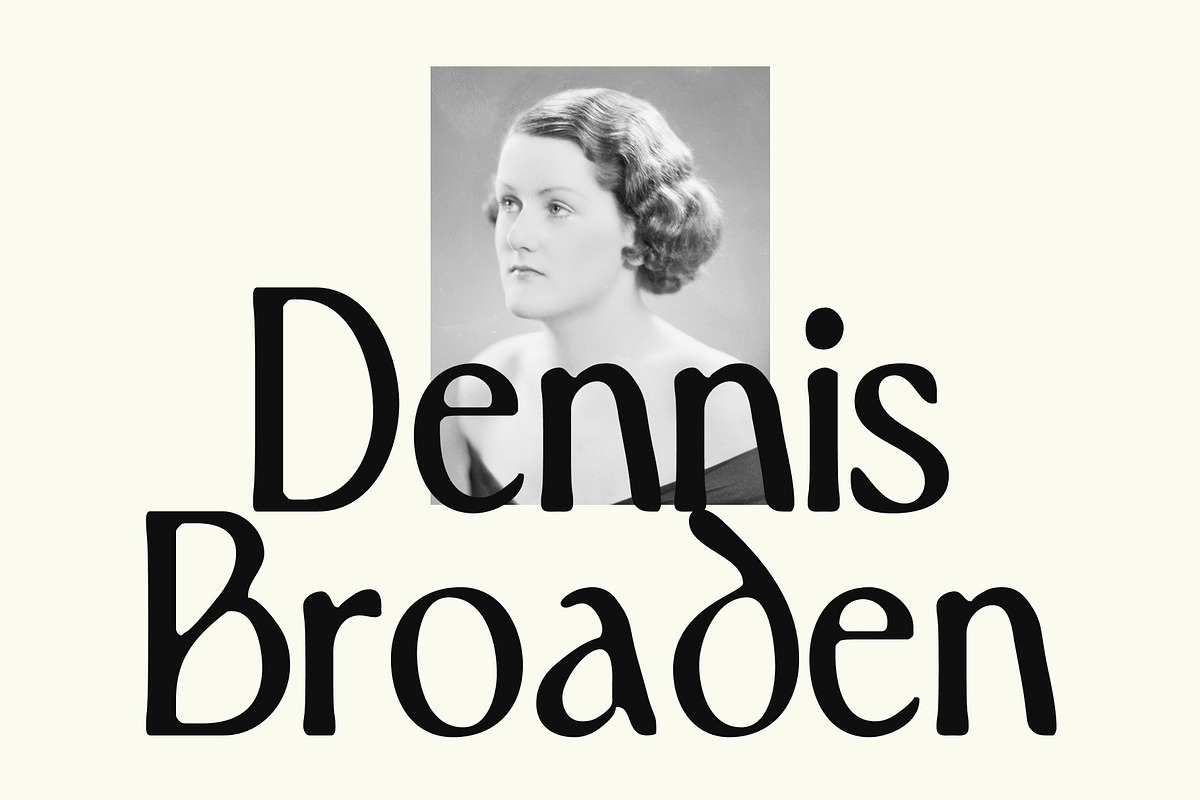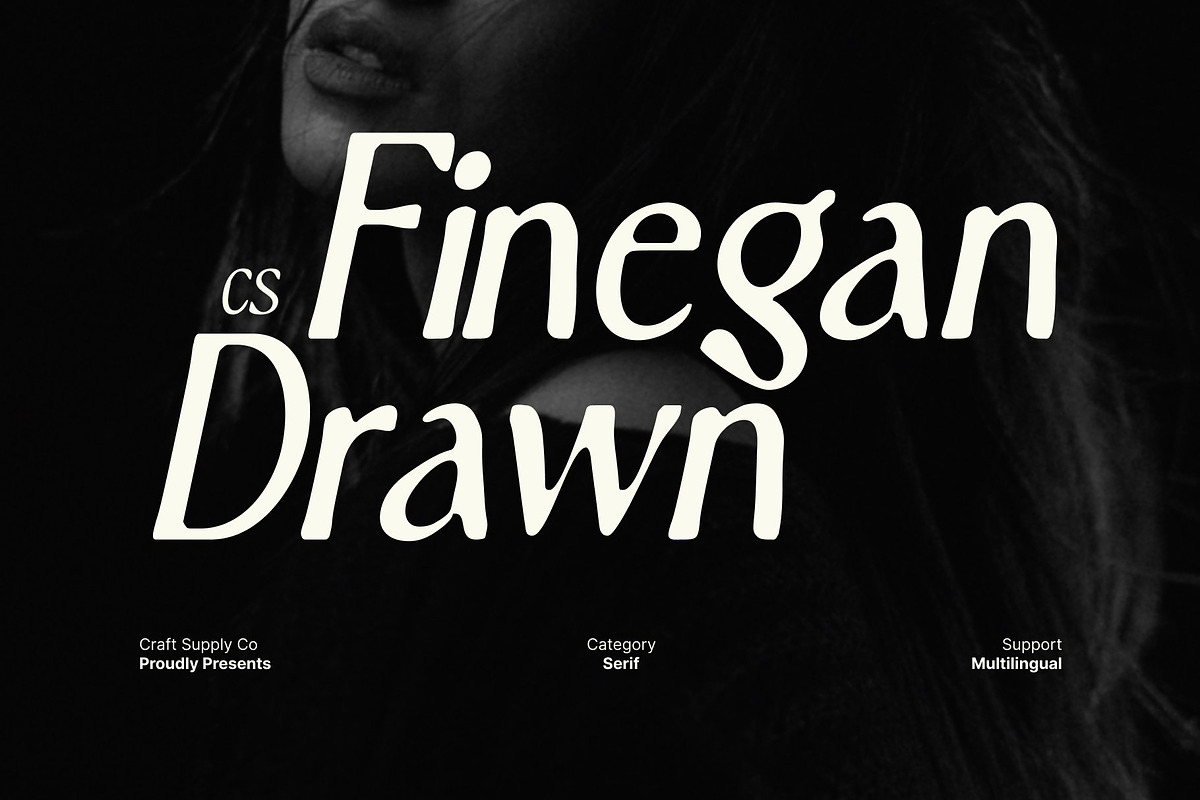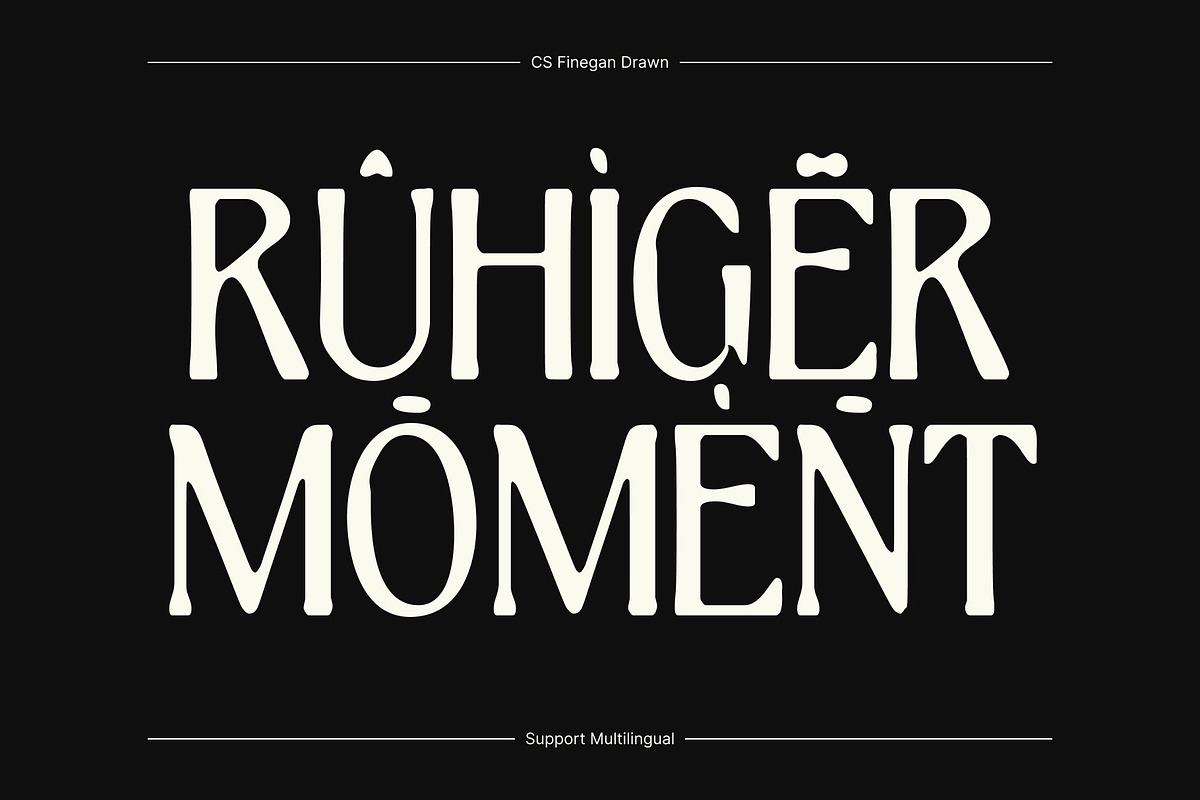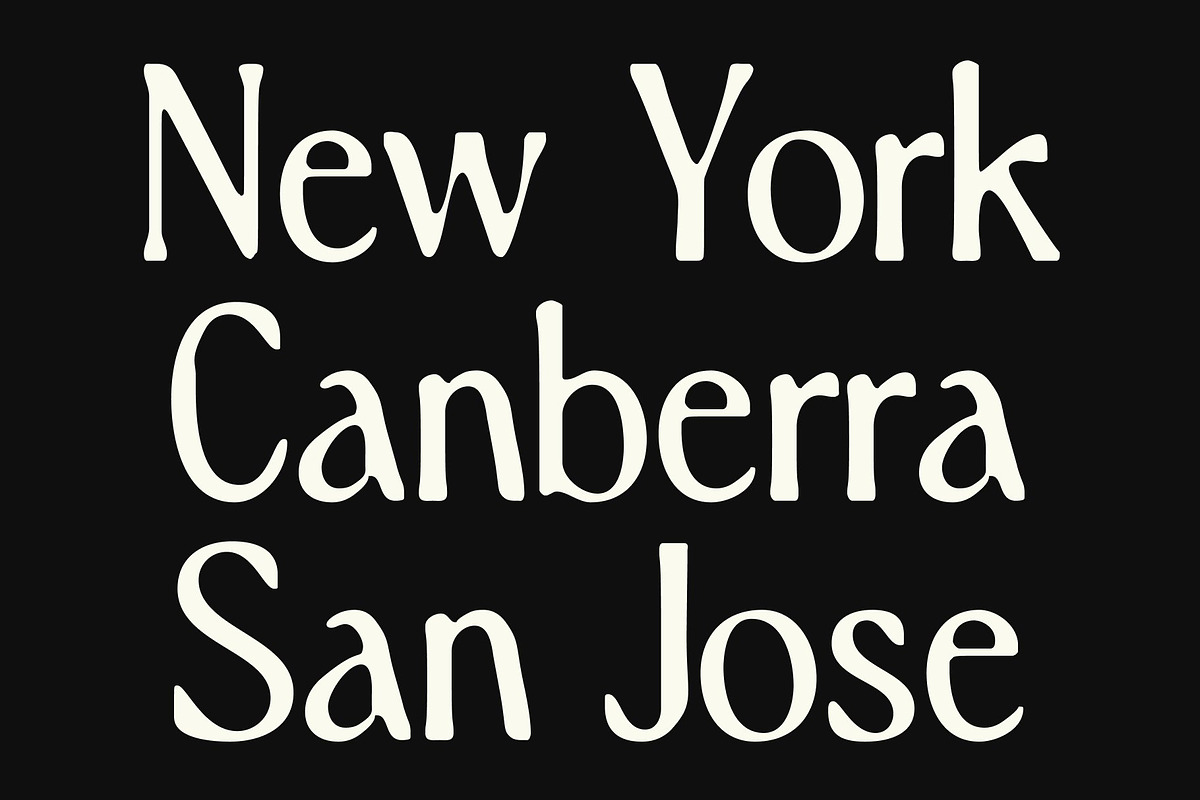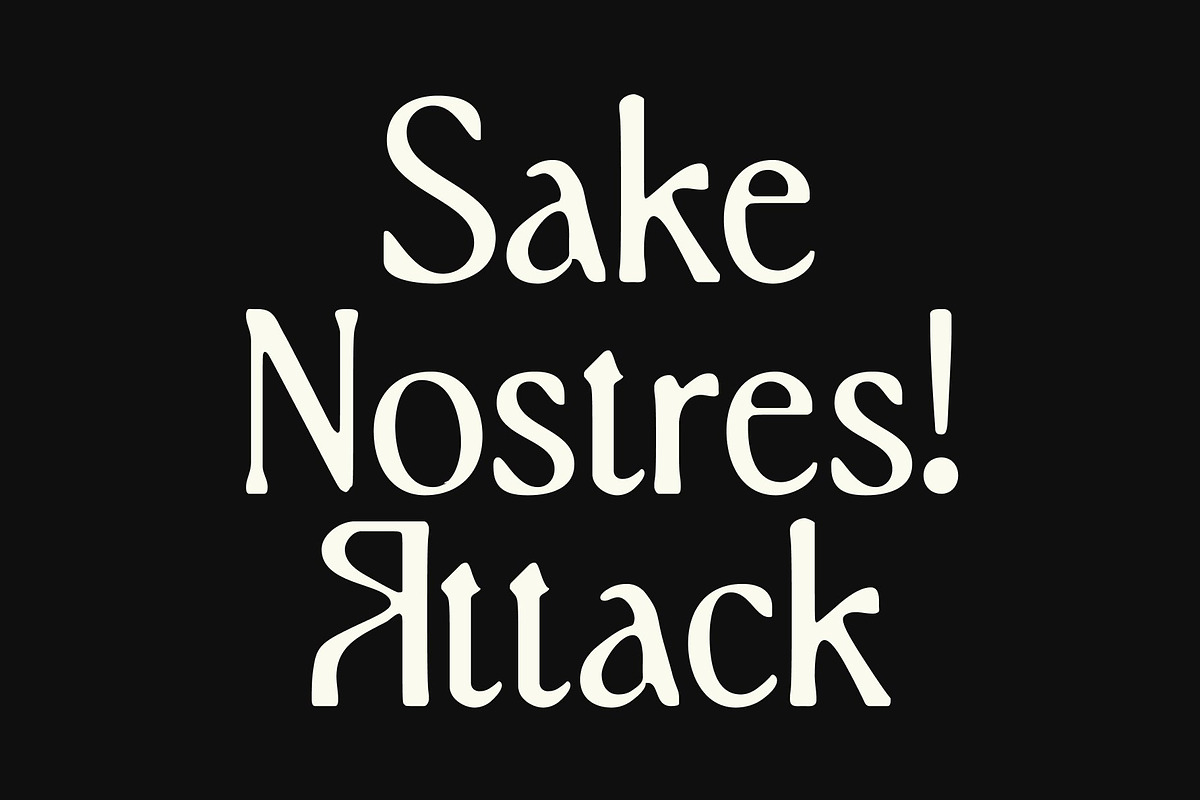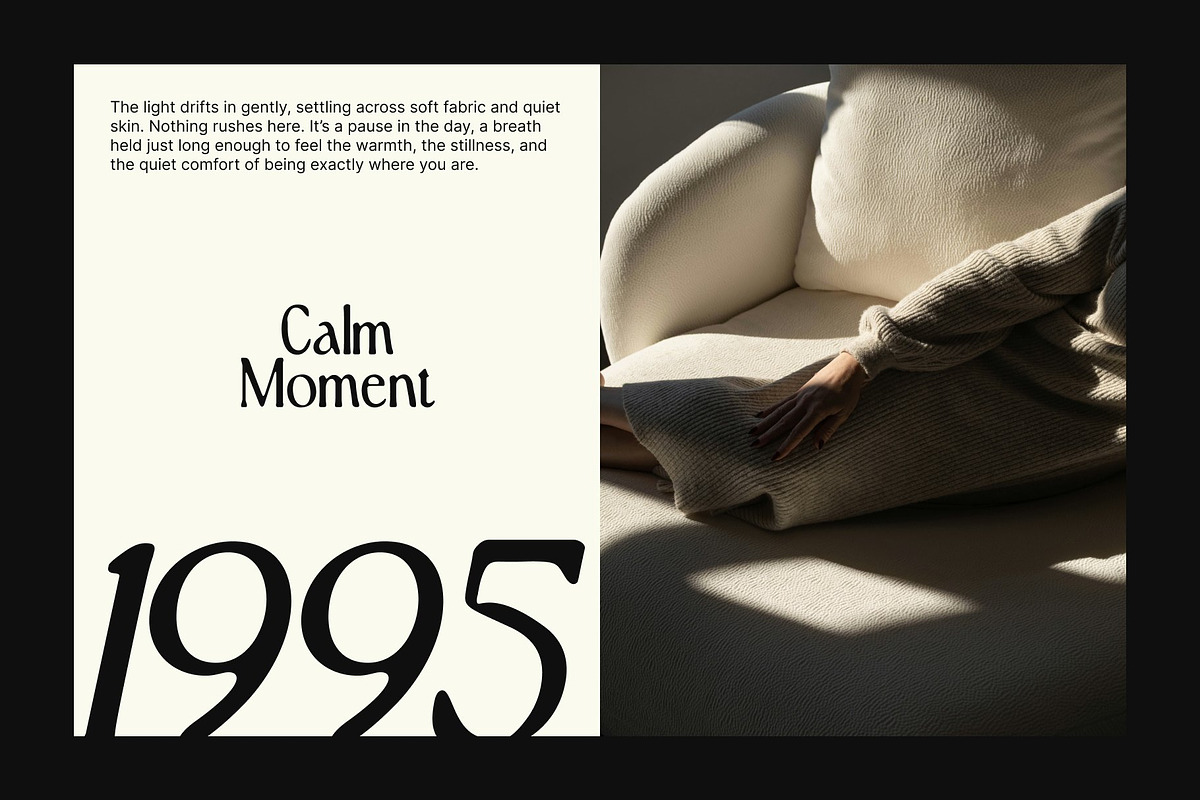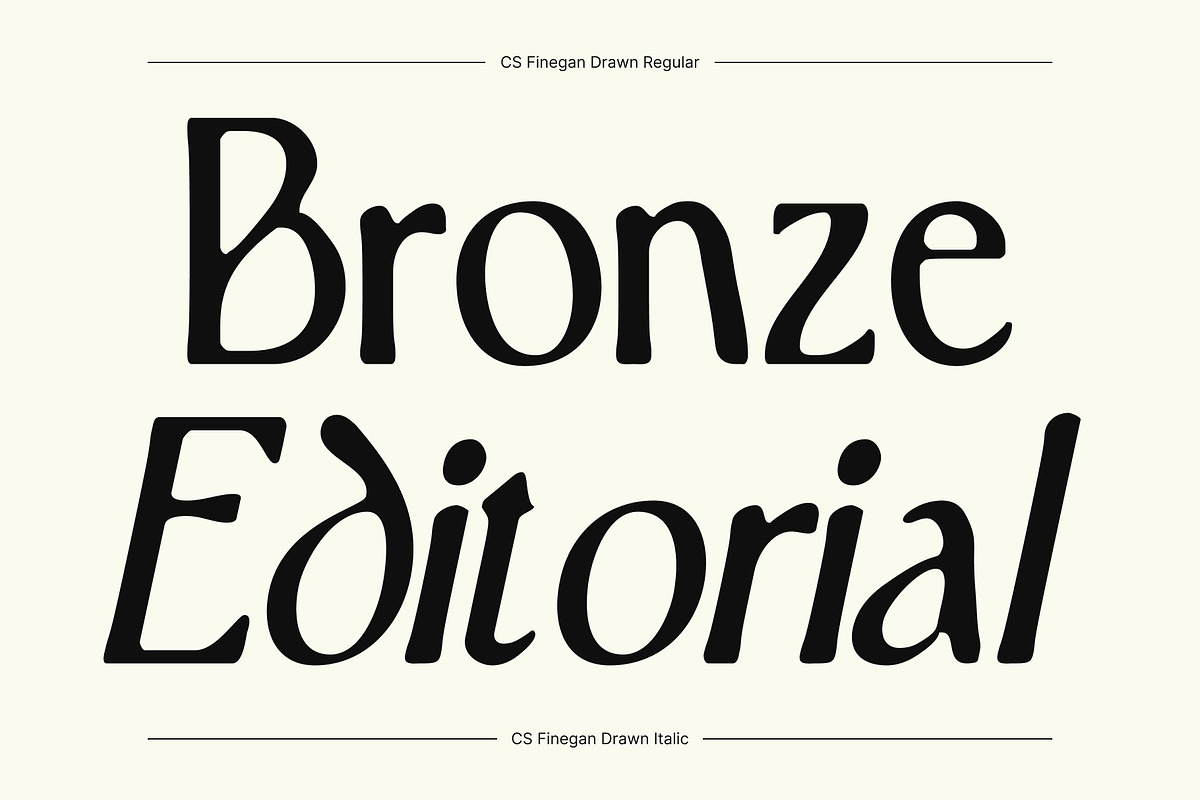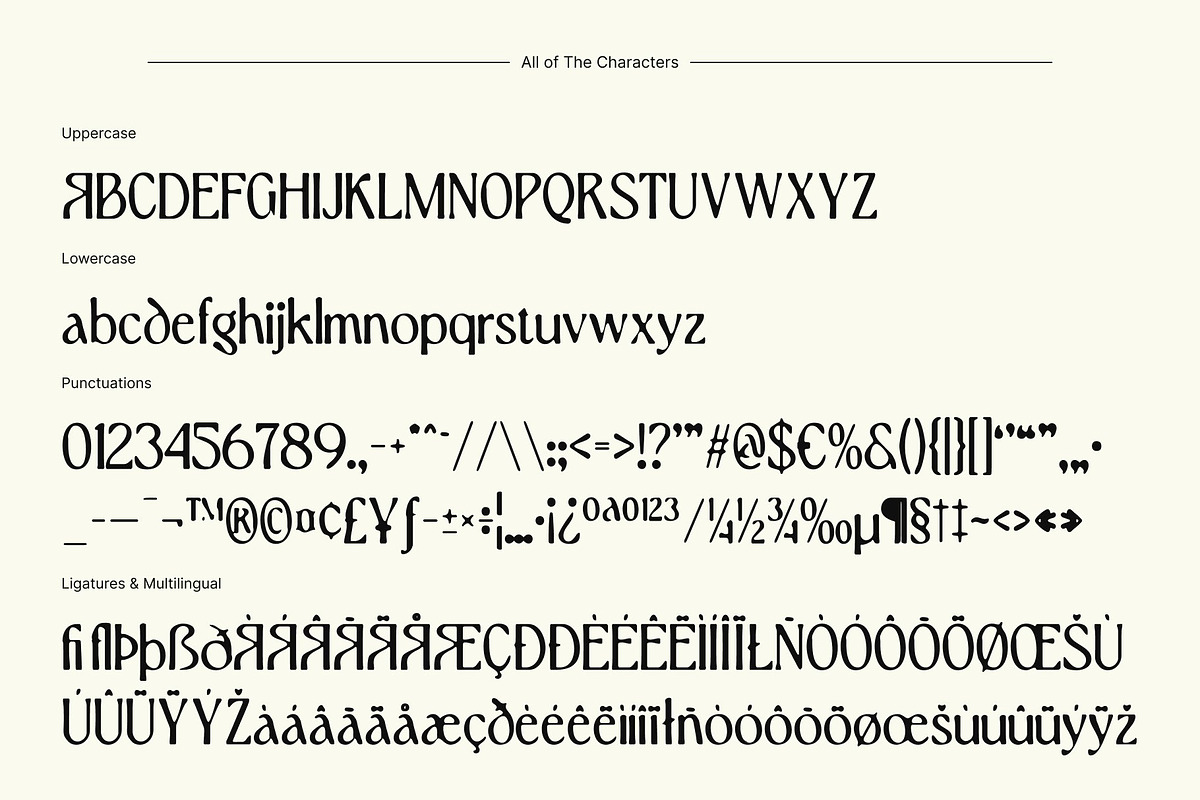
CS Finegan Drawn
CS Finegan Drawn – Modern Serif with Artistic Hand-Drawn
Contemporary Style with Quirky Serif Character This is a modern serif font that blends sleek sophistication with charming quirky details. Its elongated, slender forms create a clean and contemporary silhouette, while the distinctive serif shapes add personality and originality to every letter.
Hand-Drawn Texture for Artistic Expression The drawn effect brings this font to life with an organic, handmade texture. Each character carries subtle imperfections and artistic strokes that introduce warmth and authenticity. These manual touches soften the modern structure, creating a graceful balance between refined design and creative expression. The handcrafted feel enhances visual interest, making the font uniquely expressive and visually engaging.
Sleek Forms for Luxurious Visual Appeal The elongated shapes and slender proportions give this font an unmistakably elegant aura. Its graceful rhythm and smooth flow make it ideal for designs that require a polished, upscale appearance. Whether used large in display settings or smaller in refined compositions, this font maintains a high-end feel that elevates any layout.
Ideal for Luxury Branding, Editorials, and Creative Projects This font excels in luxury branding, editorial layouts, posters, and creative concepts that need a modern yet graceful impression. Its artistic texture and contemporary structure make it perfect for fashion identities, high-end packaging, magazine titles, event graphics, and more.